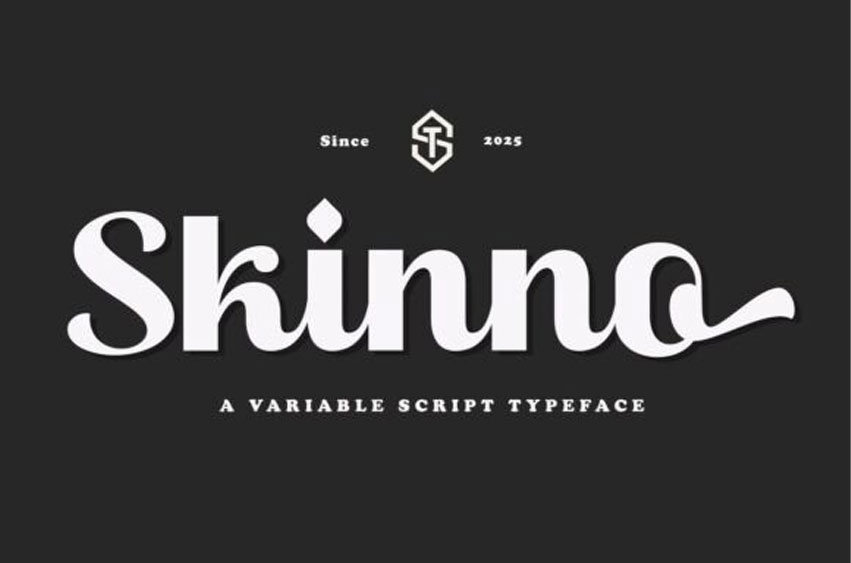
Skinno Font is a strong, expressive variable script typeface that blends modern versatility with a touch of crafted elegance. Its flowing curves and geometric structure create a confident, stylish rhythm across every character.
From smooth light weights to commanding heavy styles, Skinno delivers impact and personality for every design context. Perfect for branding, packaging, editorial titles, signage, and creative displays, this typeface adapts seamlessly to your visual needs.